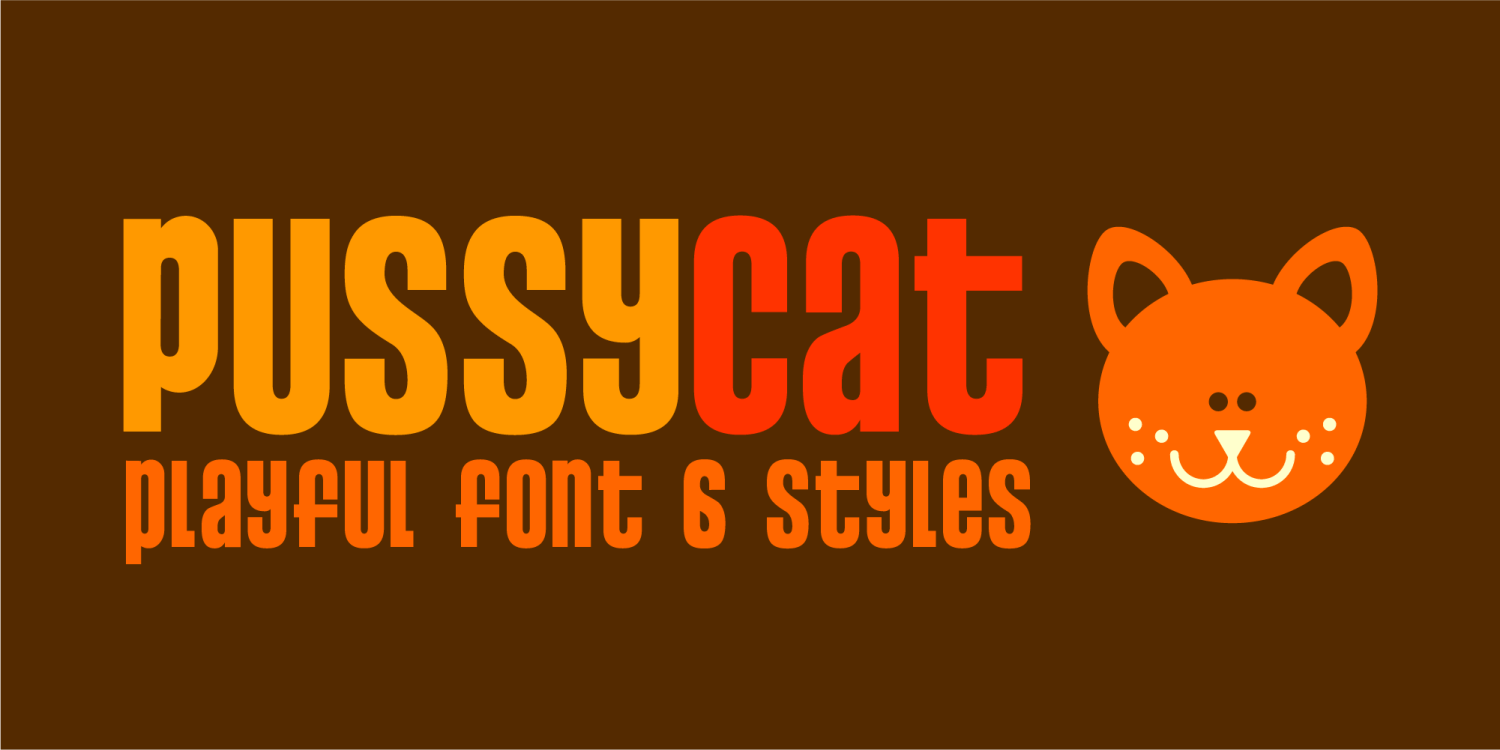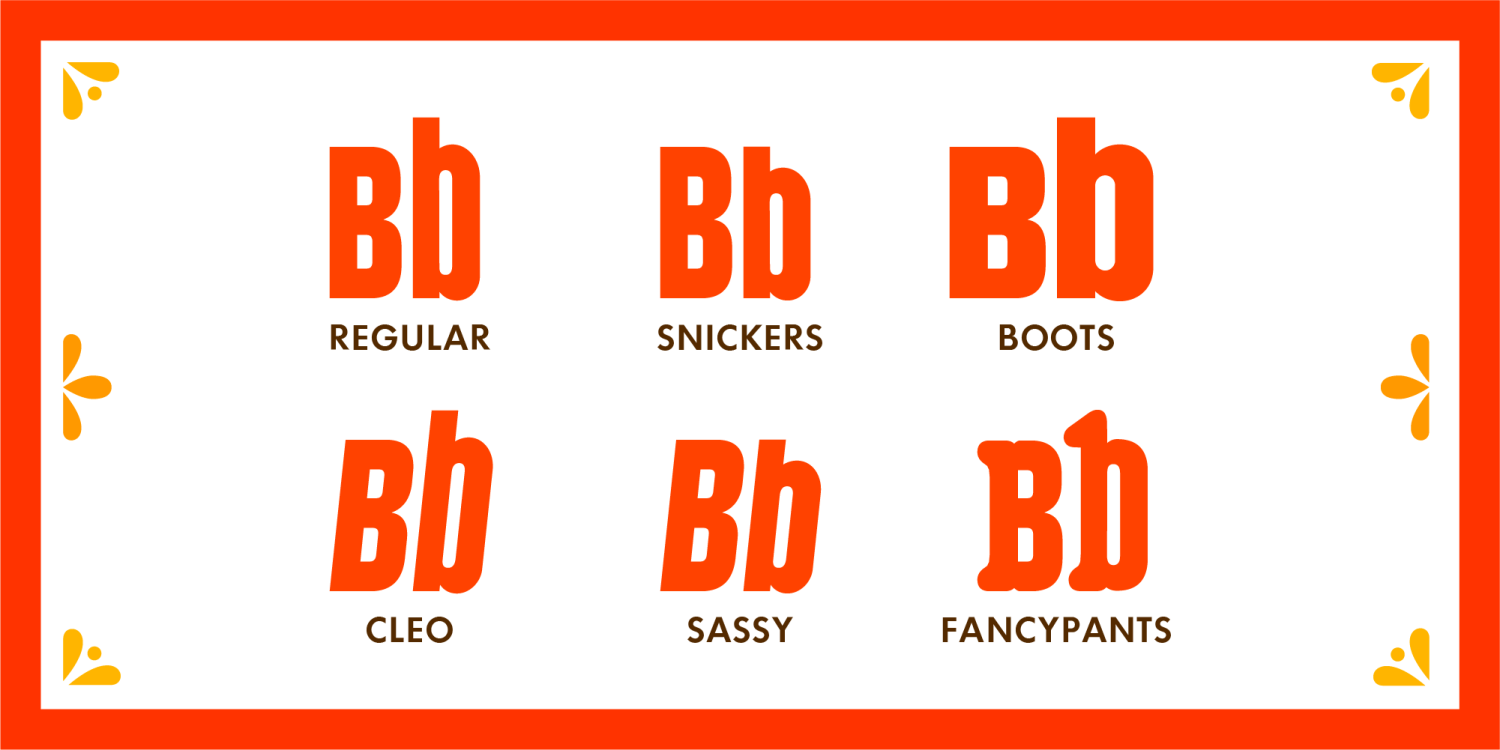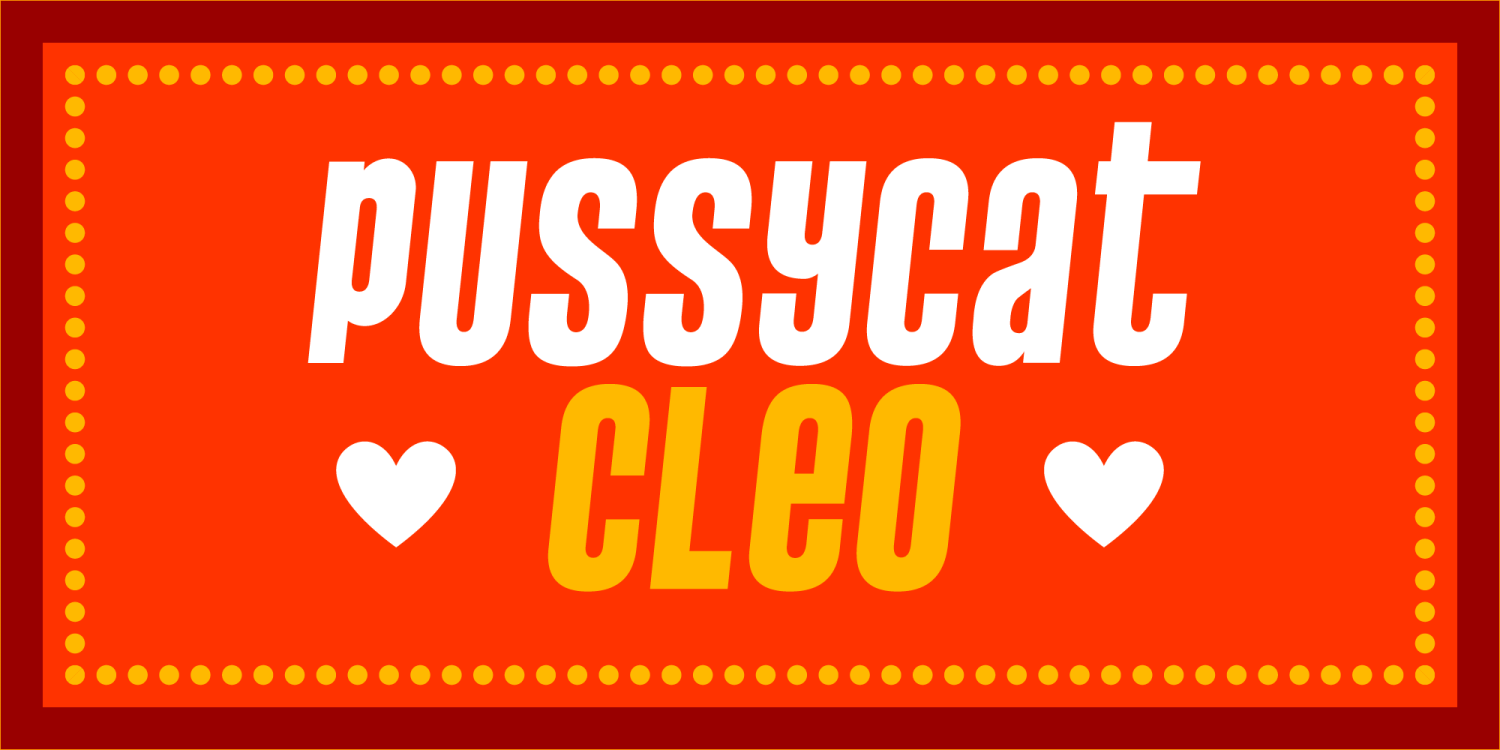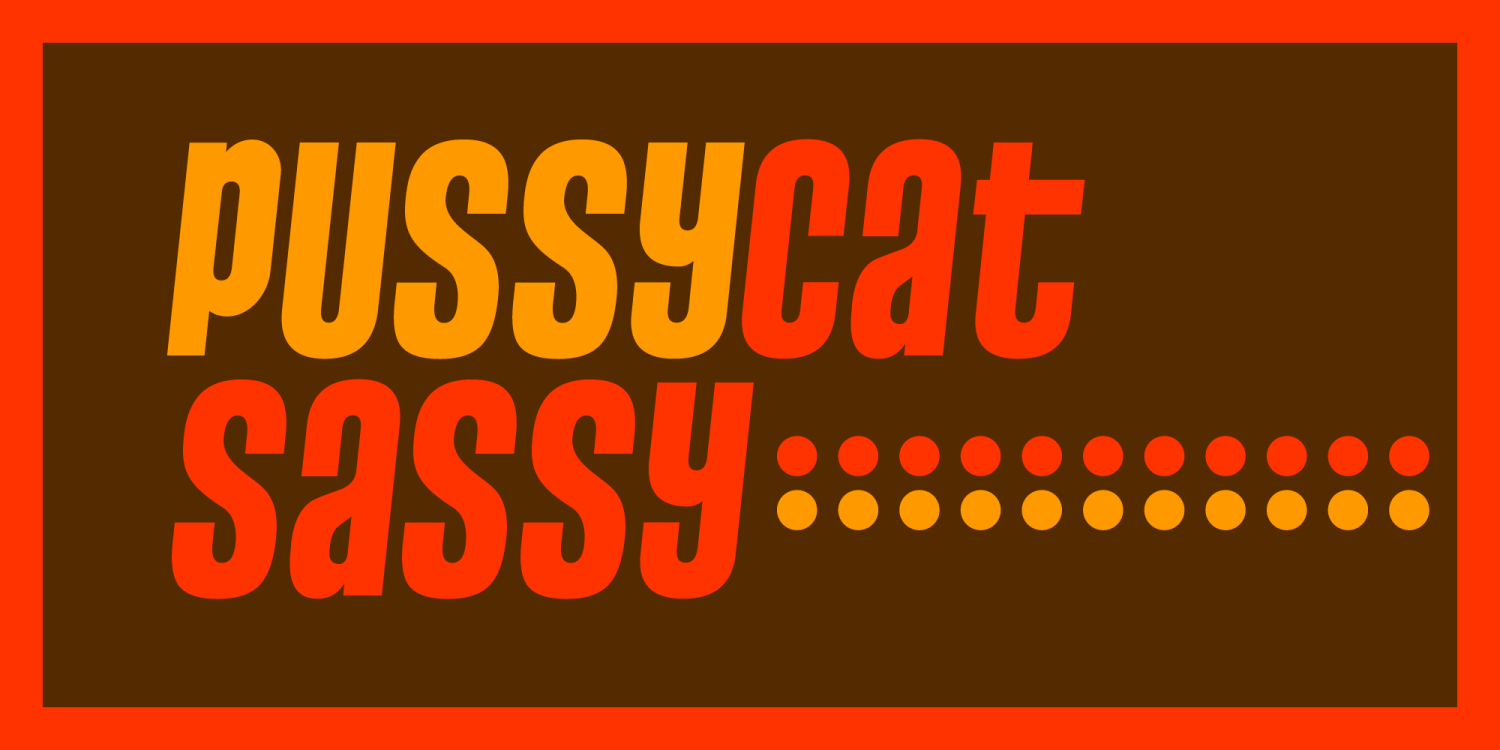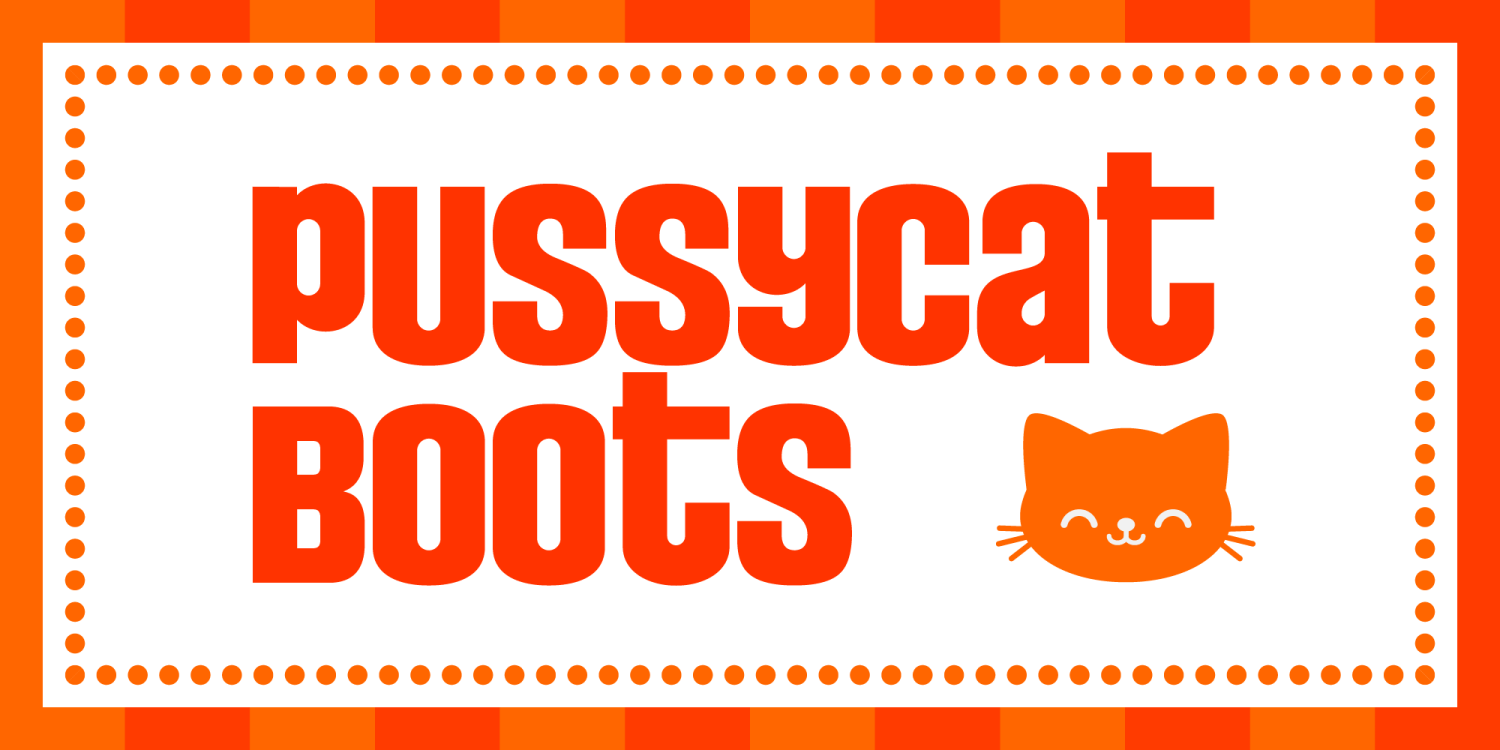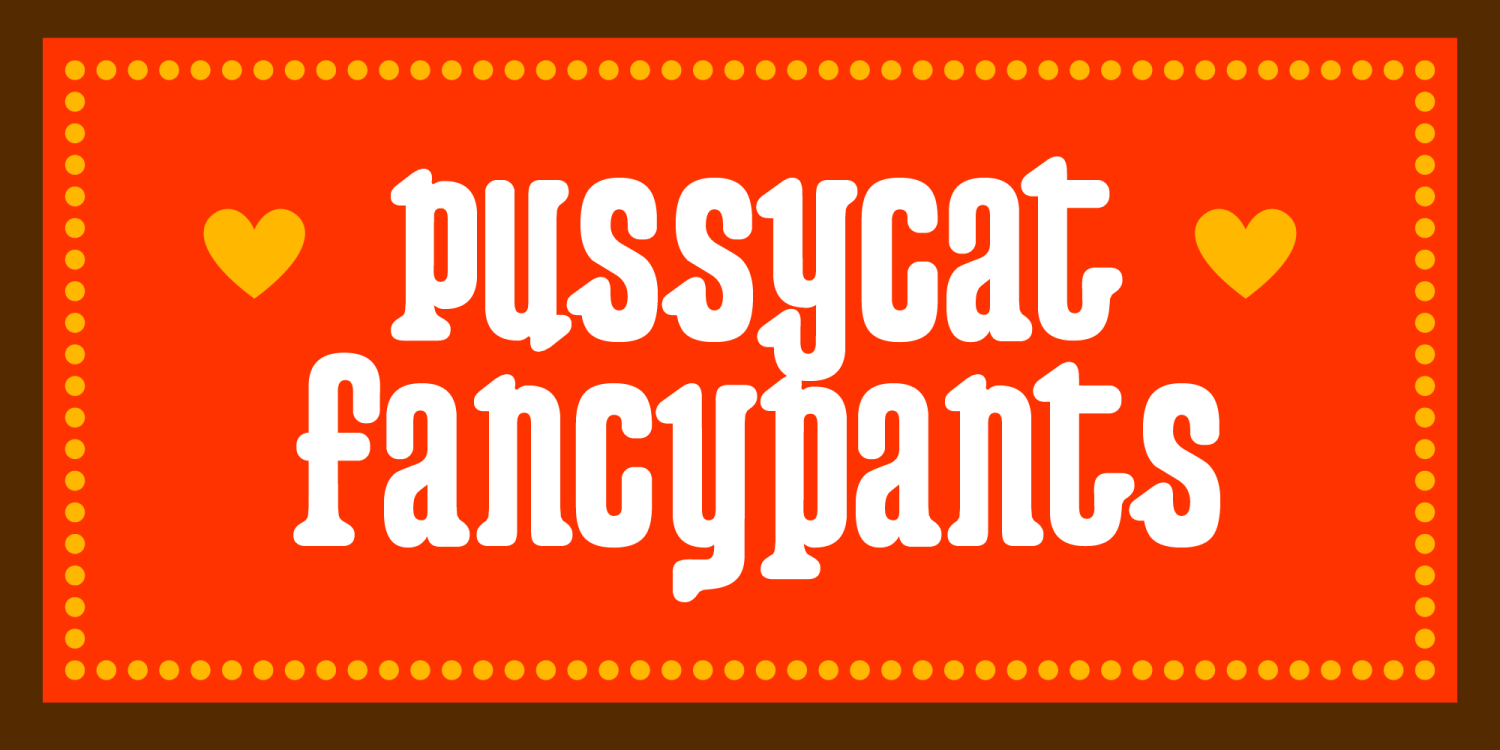
Pussycat
Font Family by Fontalicious
Transform your text into a whimsical wonderland with Pussycat Font, a whisker-twirling, tail-swirling collection that'll make your words meow-mazingly stylish!